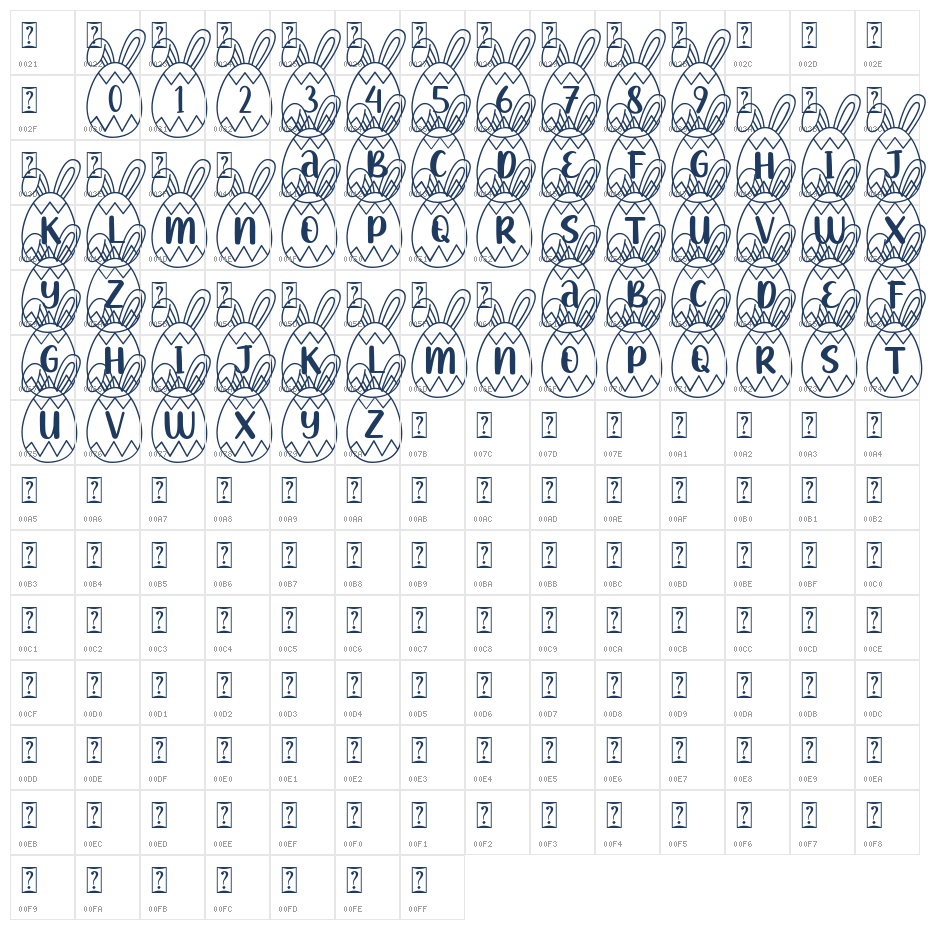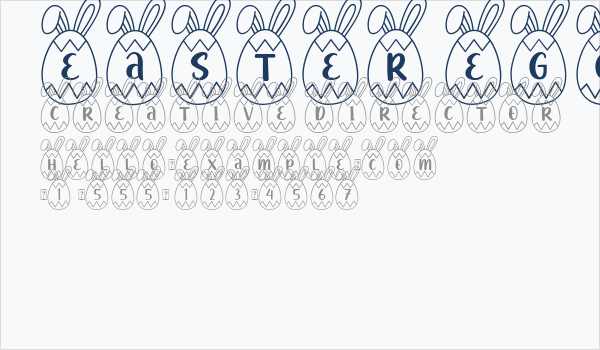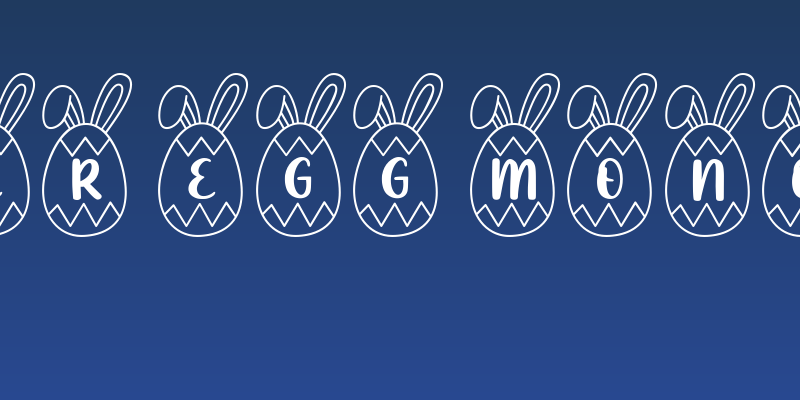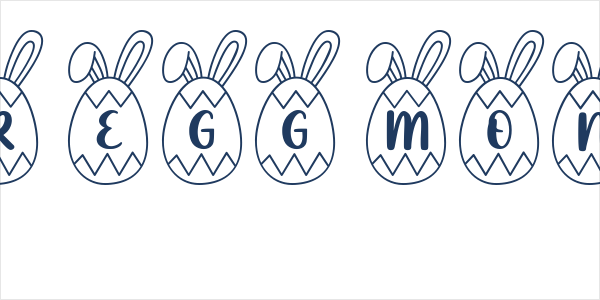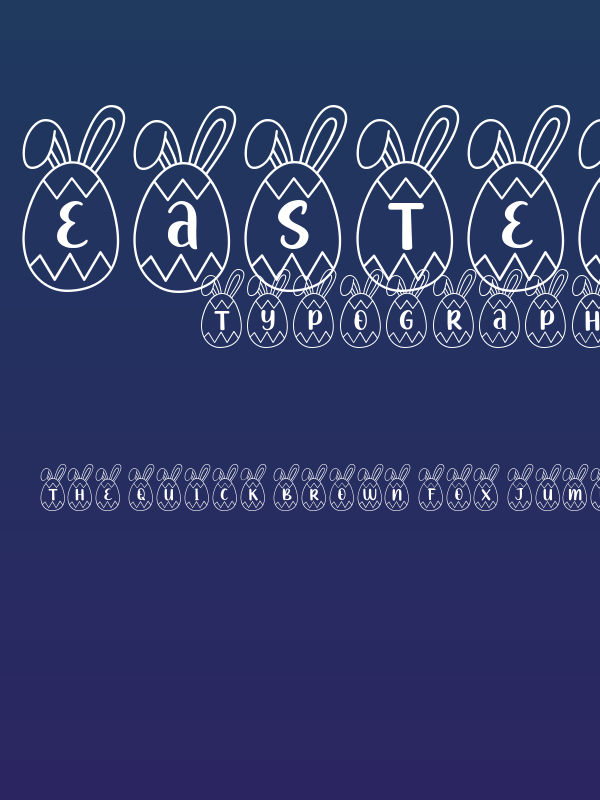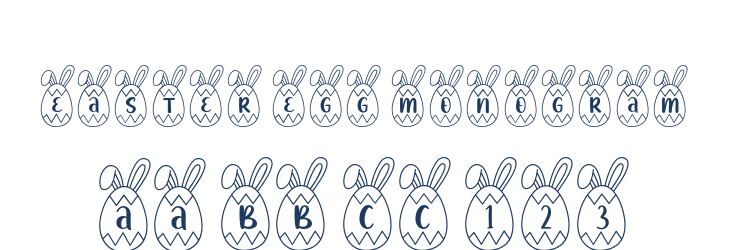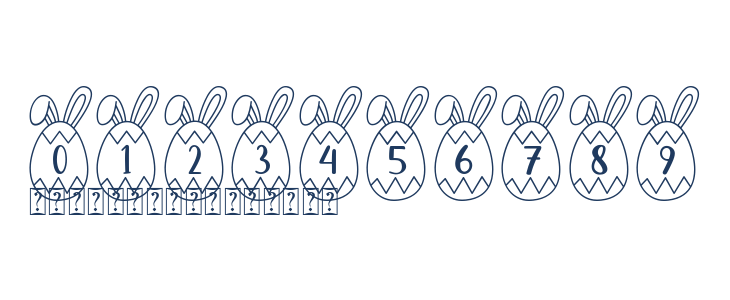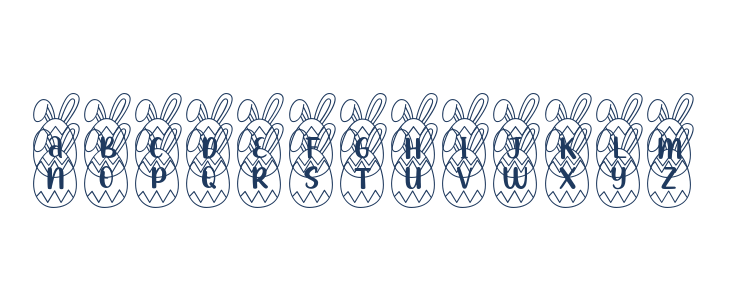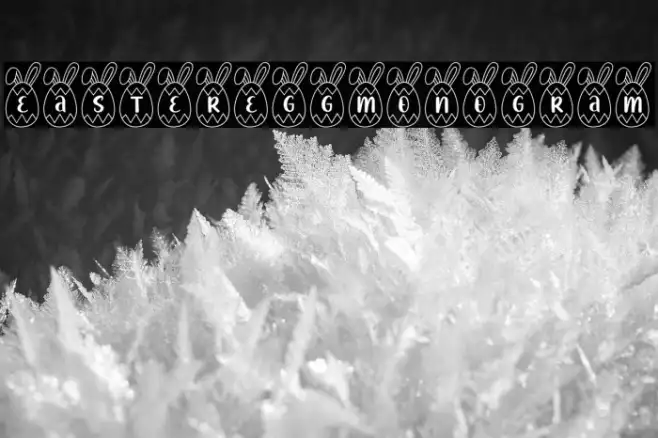
Easter Egg Monogram Font
Easter Egg Monogram Description
A decorative, playful font featuring bunny-shaped outlines with internal letter and number details, combining whimsical and intricate design elements.
Easter Egg Monogram
| Overall Style | Whimsical, Playful, Festive |
| Use Case | Headlines, Logos, Decorative text, Invitations |